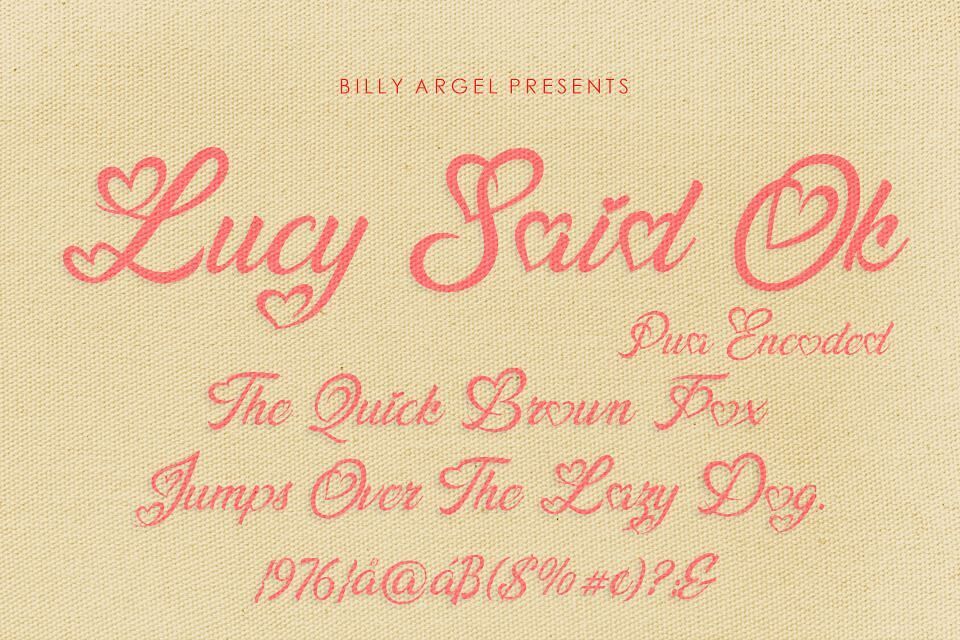
Lucy Said Ok, crafted by Billy Argel, is a whimsical, hand-drawn calligraphy font bursting with personality. Its playful irregularity—varying letter sizes and baselines—infuses a lively, artisanal charm, perfect for wedding invitations, branding, or artistic posters.
This PUA-encoded font exudes warmth and approachability, capturing a human touch in digital typography.